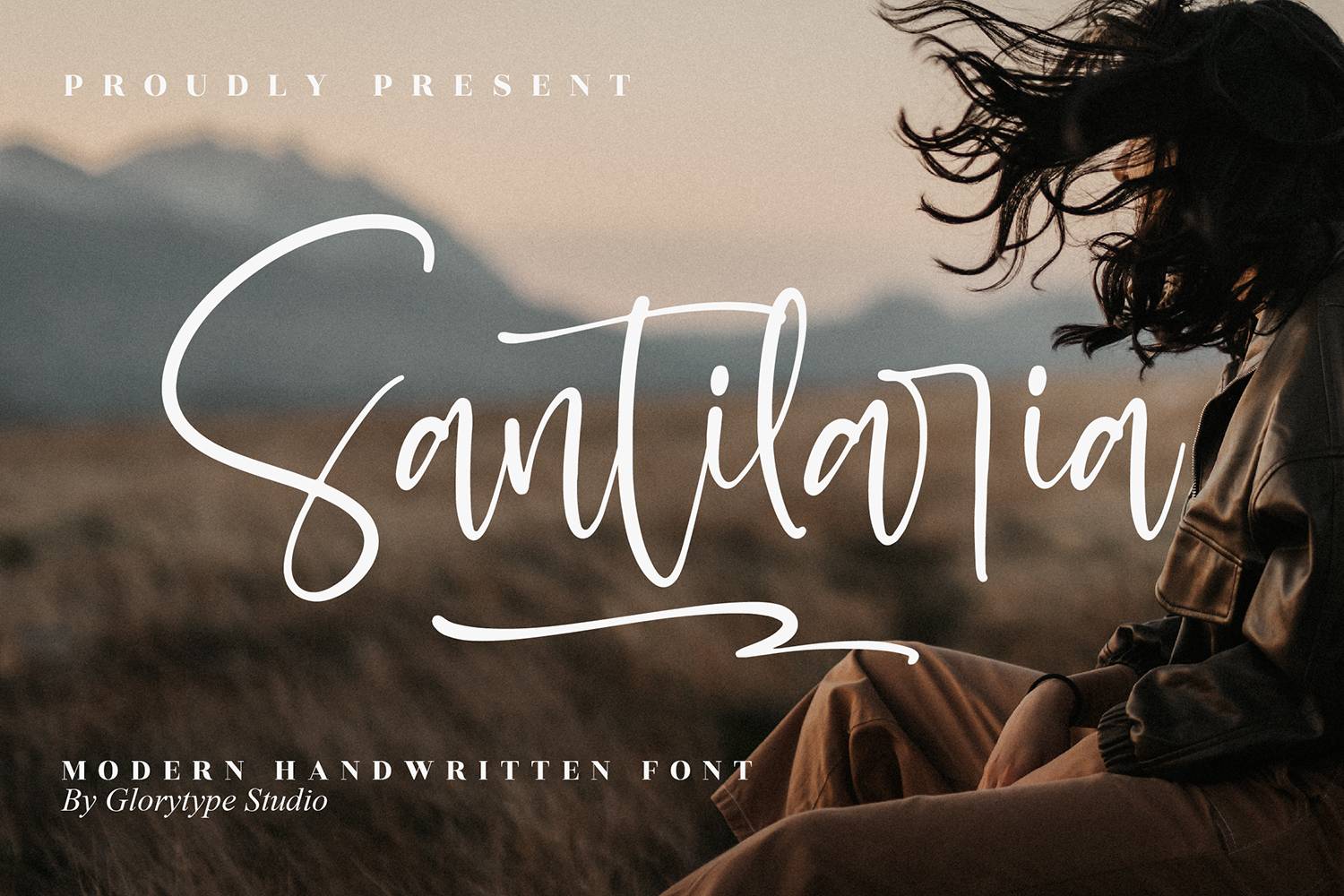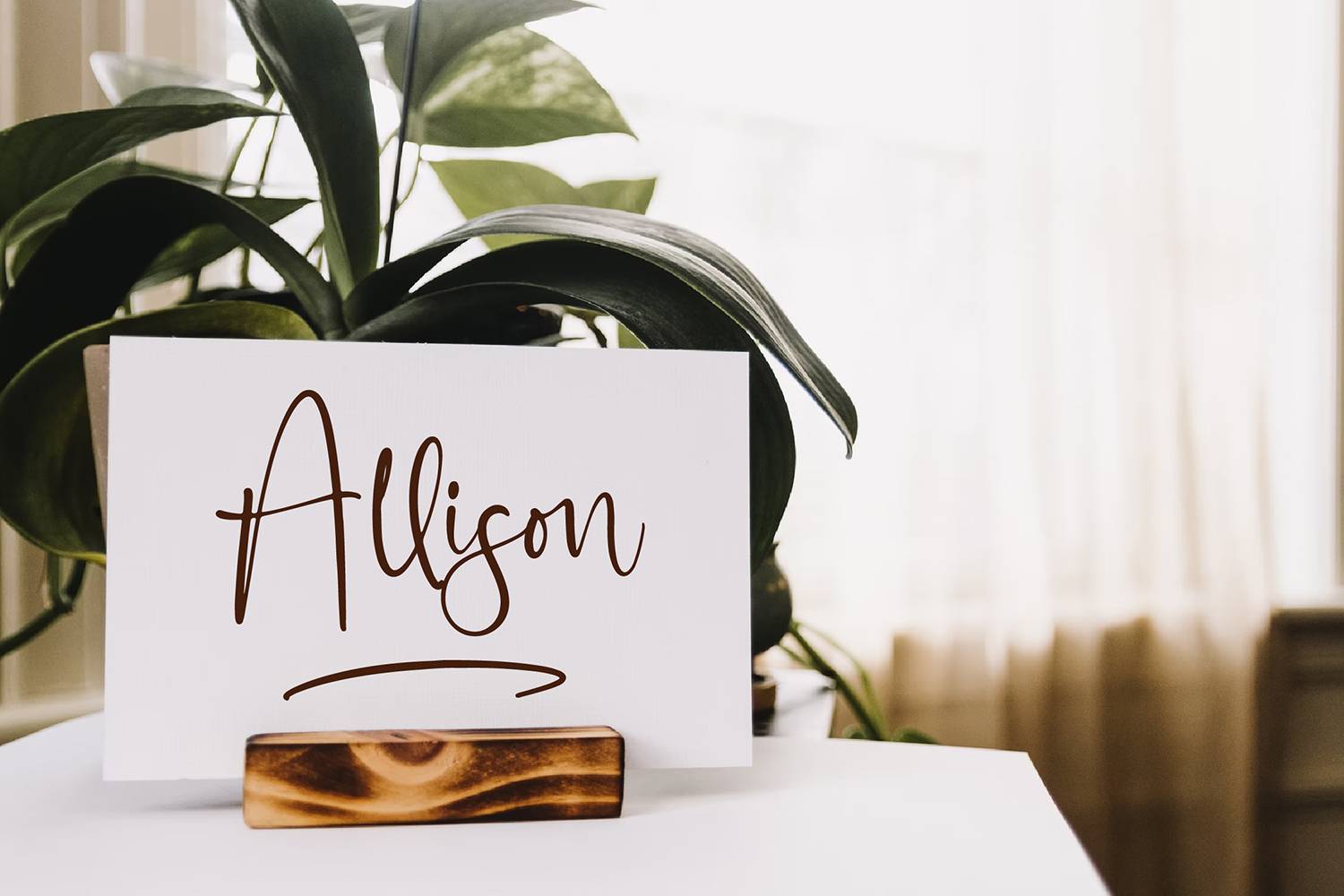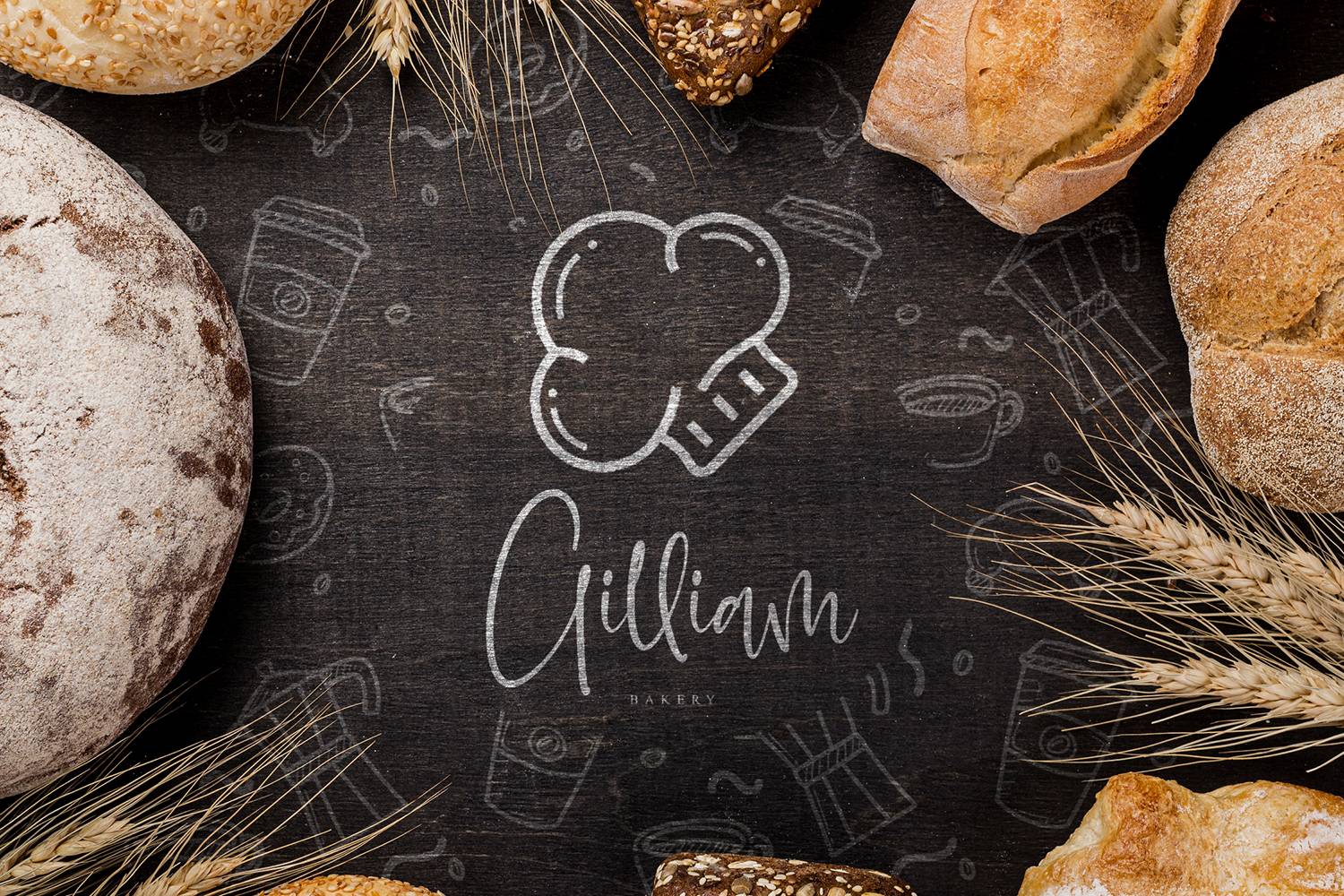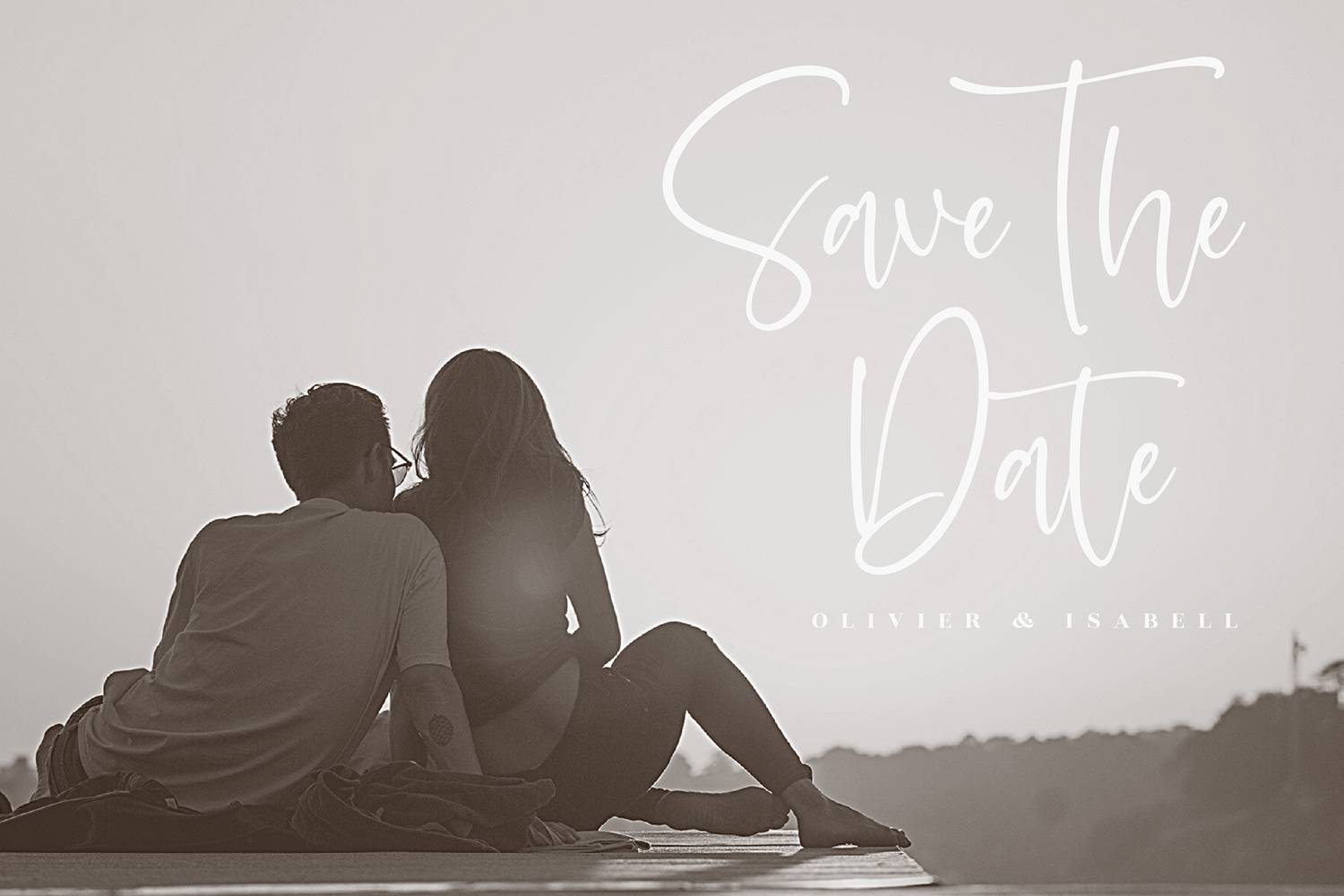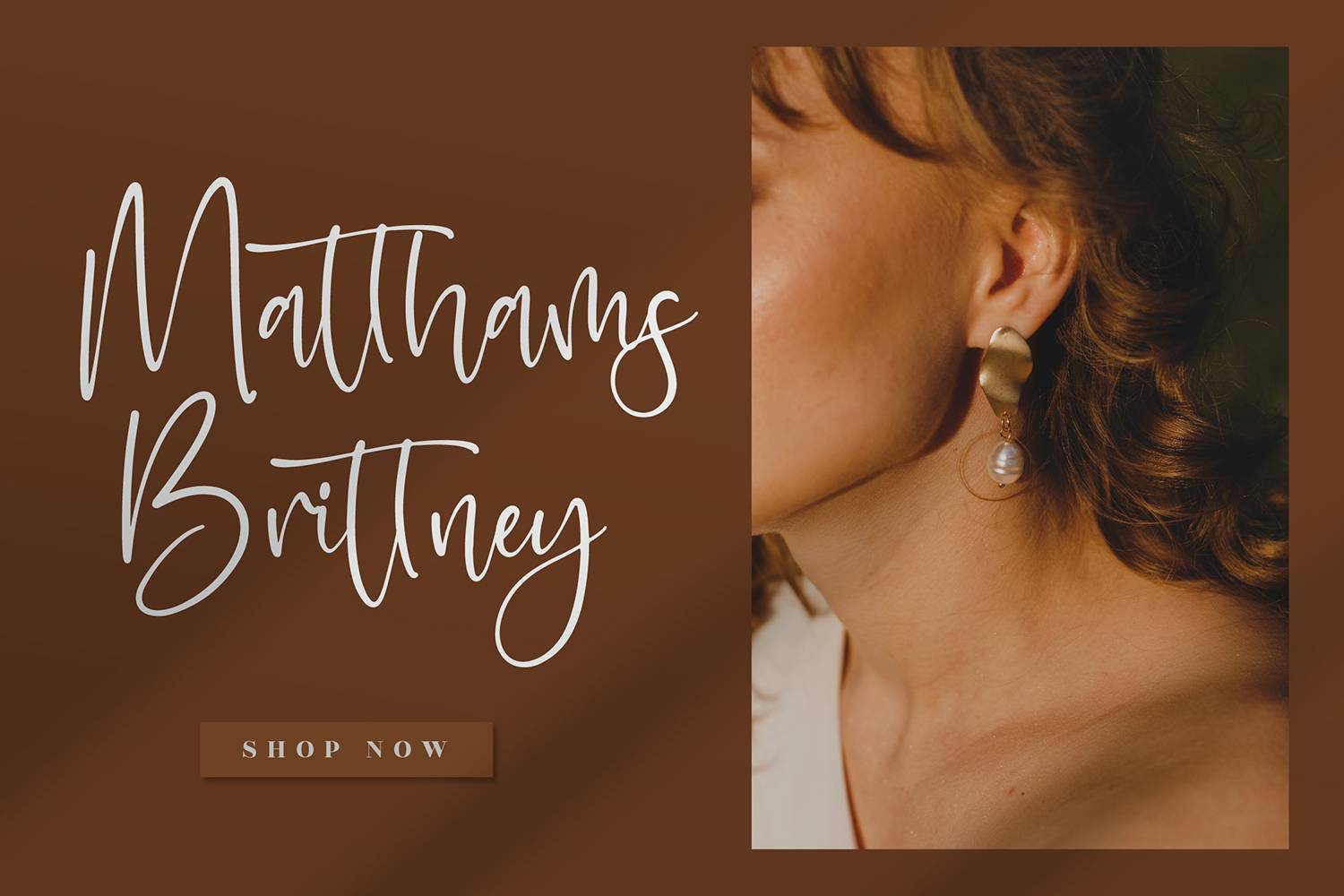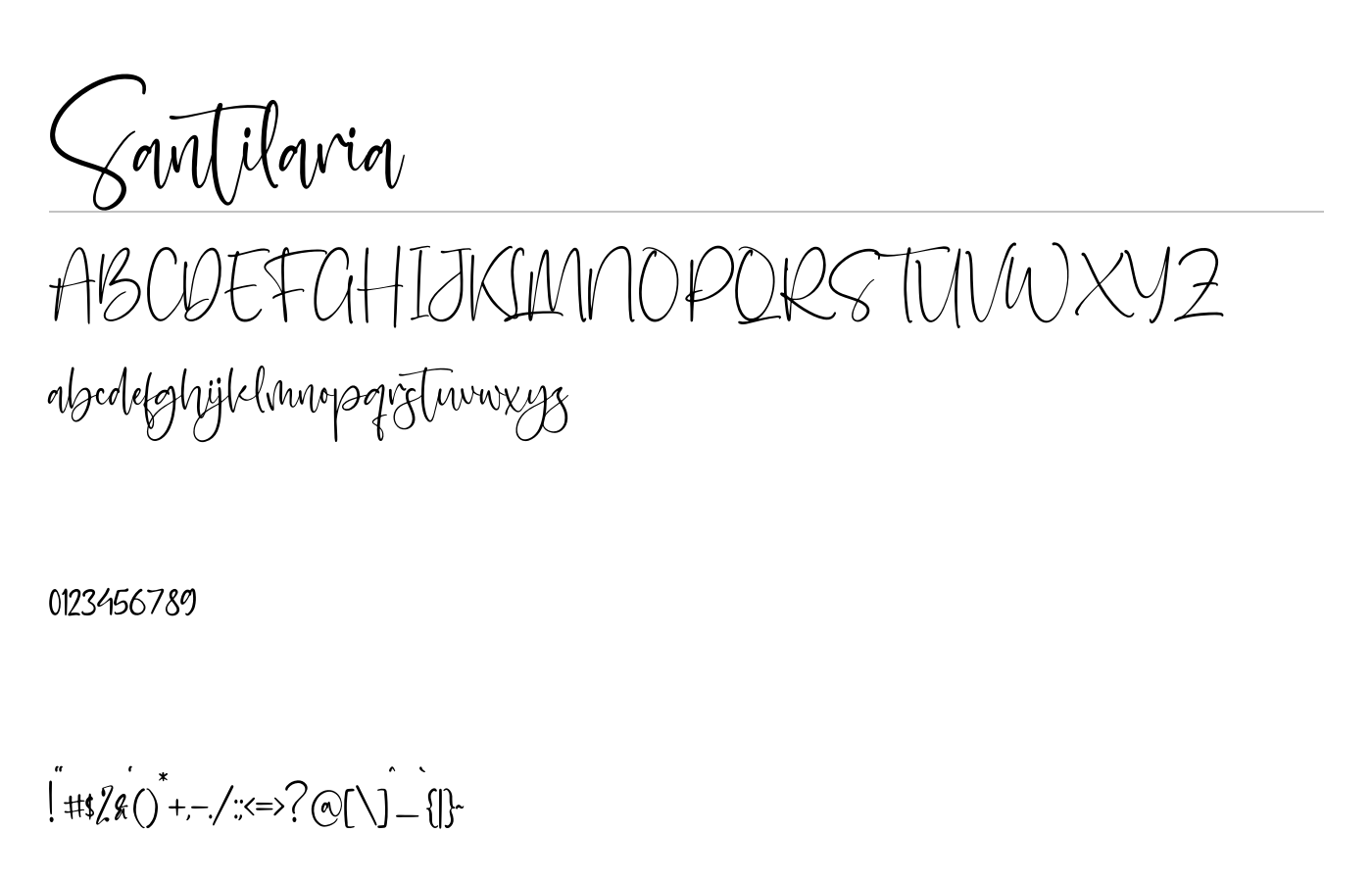
Santilaria is a delicate, hand-drawn script font characterized by its playful and whimsical style, featuring tall, narrow letterforms with a handwritten feel. Its light weight and casual strokes make it perfect for adding a personal and creative touch to invitations, branding, and social media designs. This font works best in designs that seek a friendly, artistic vibe with elegance and charm.
Santilaria Font
About Santilaria Font